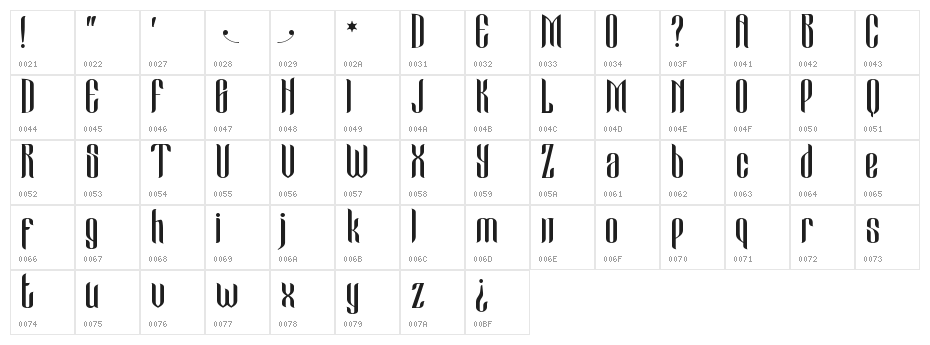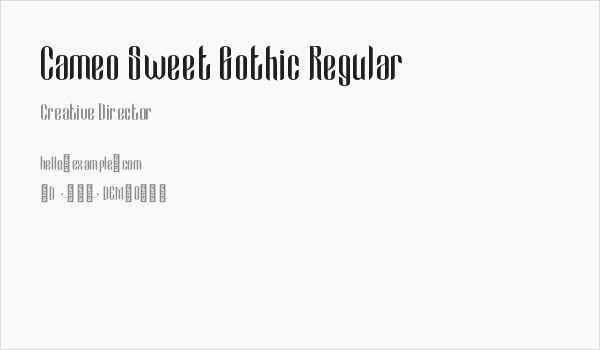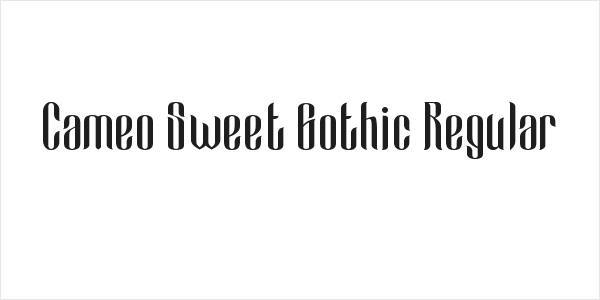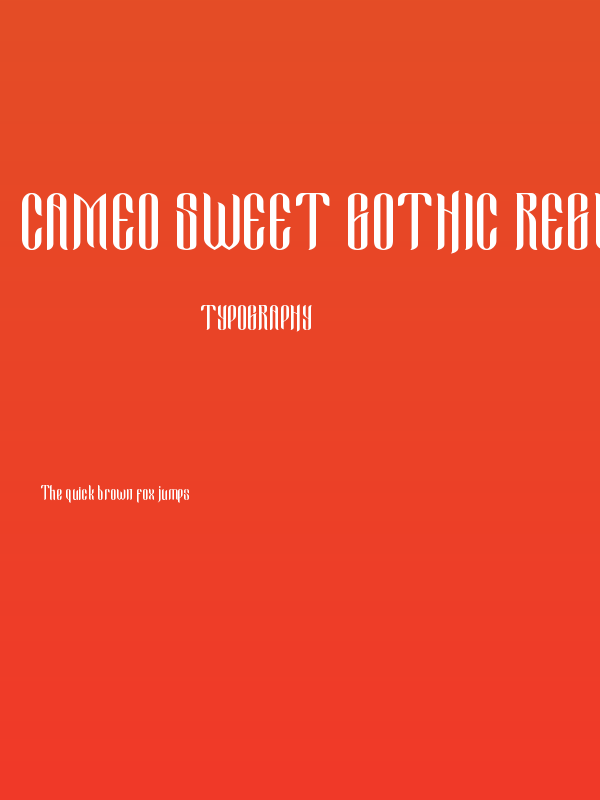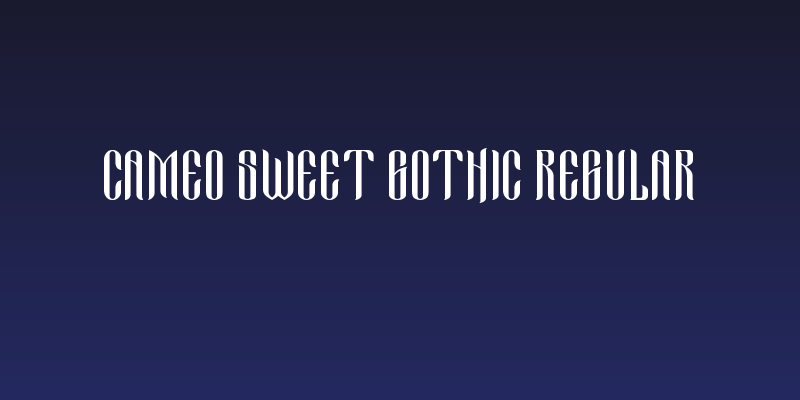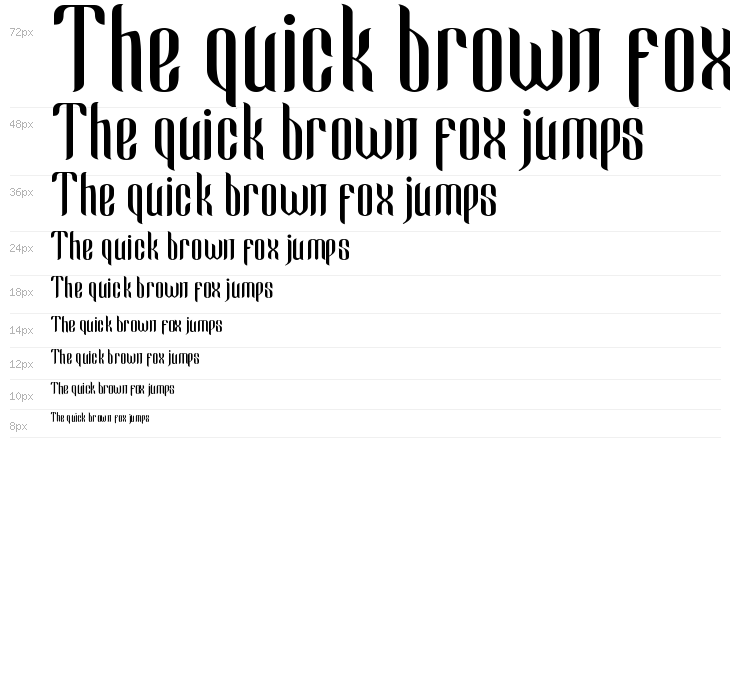
Cameo Sweet Gothic Regular Font
Cameo Sweet Gothic Regular Description
This font exhibits a unique blend of gothic and modern styles, characterized by its tall, narrow letterforms and sharp, angular edges. The uppercase letters are particularly elongated, giving a dramatic and imposing appearance. The lowercase letters maintain a similar style, with a consistent stroke width that enhances readability. The numerals and special characters are designed to match the overall aesthetic, featuring the same bold and striking lines. This font's distinct personality makes it ideal for projects that require a touch of elegance and boldness.
| Overall Style | Modern Gothic |
| Proposed Projects | Ideal for branding, poster design, album covers, and any project needing a bold, gothic touch. |